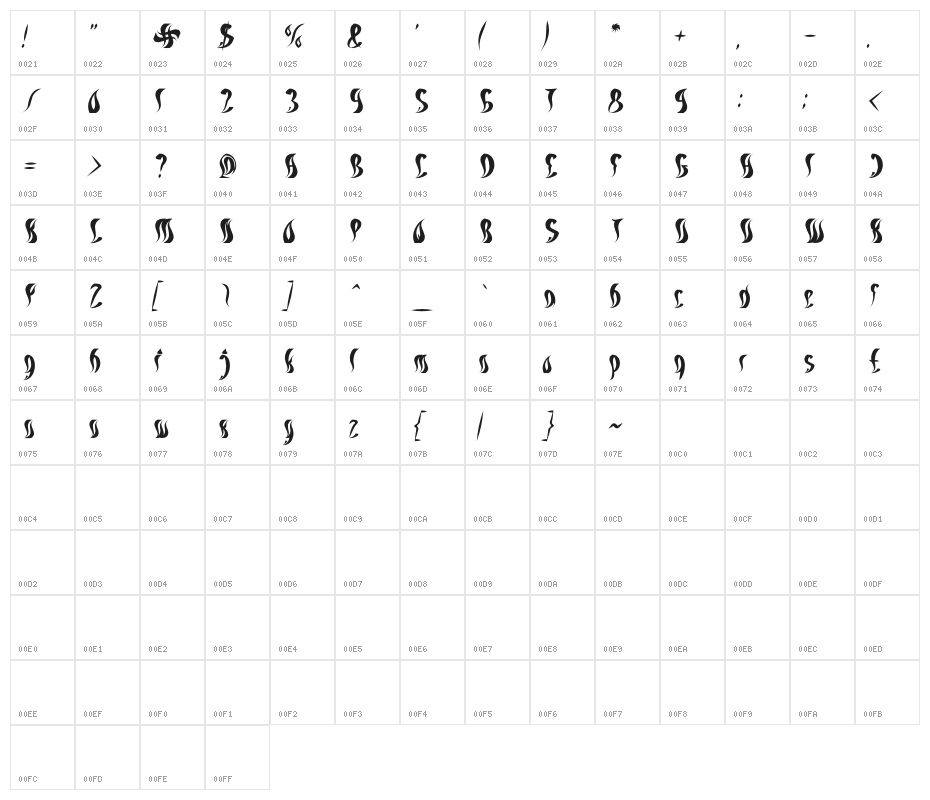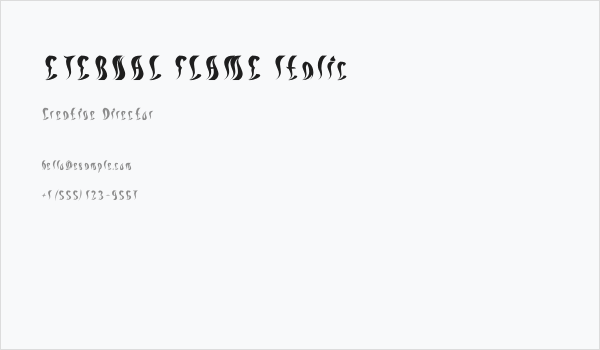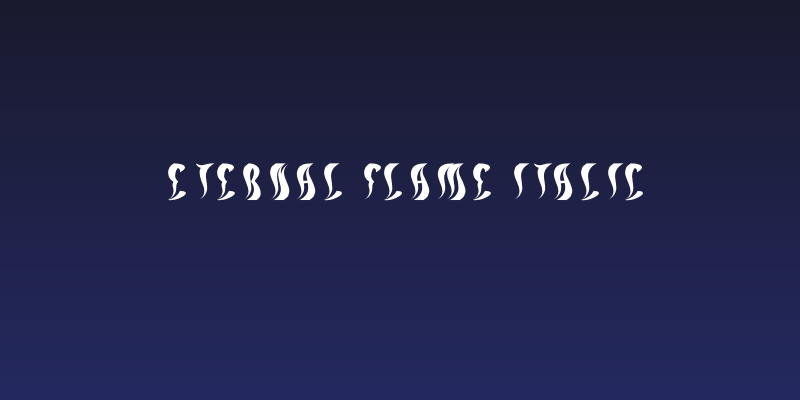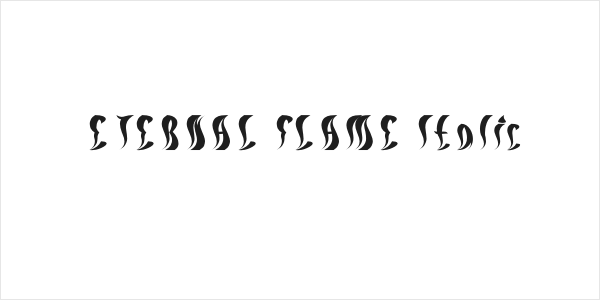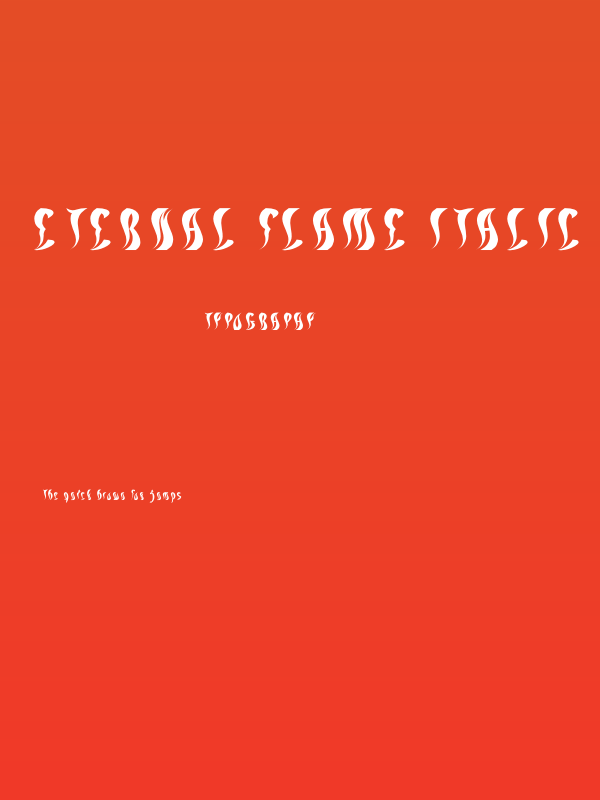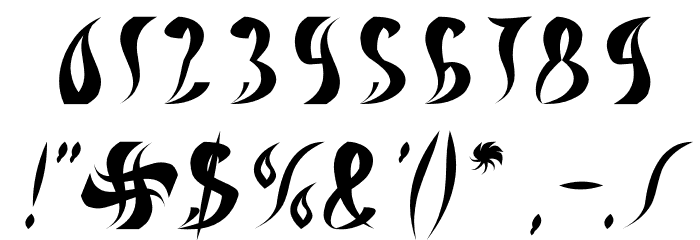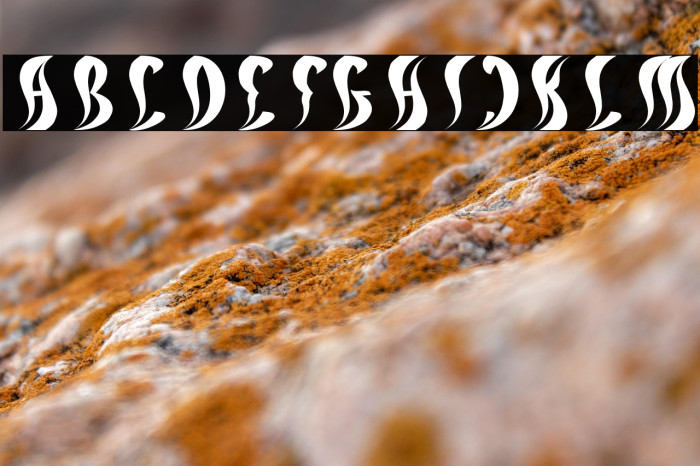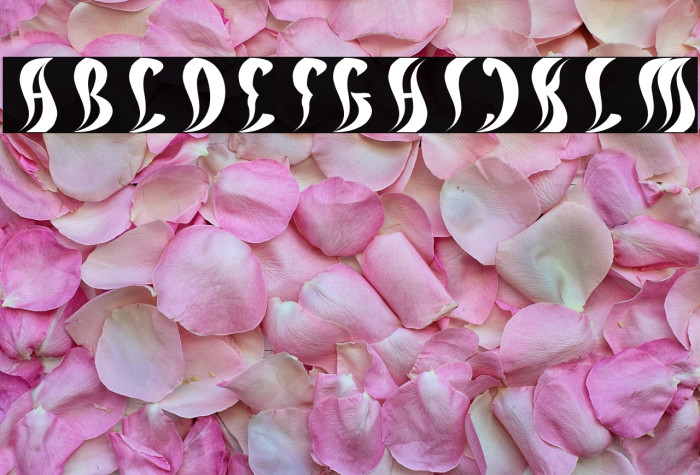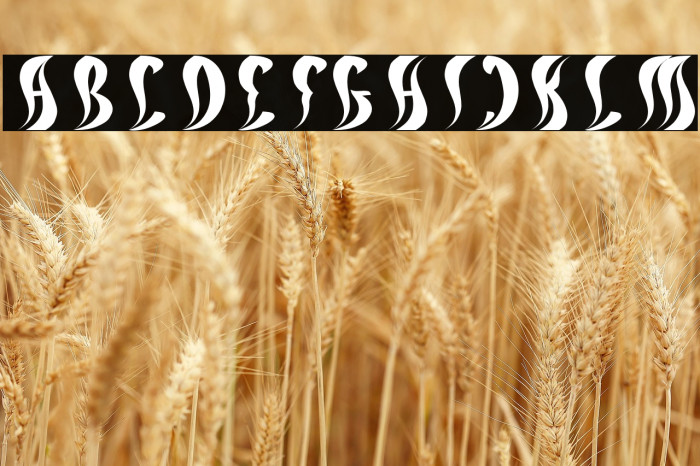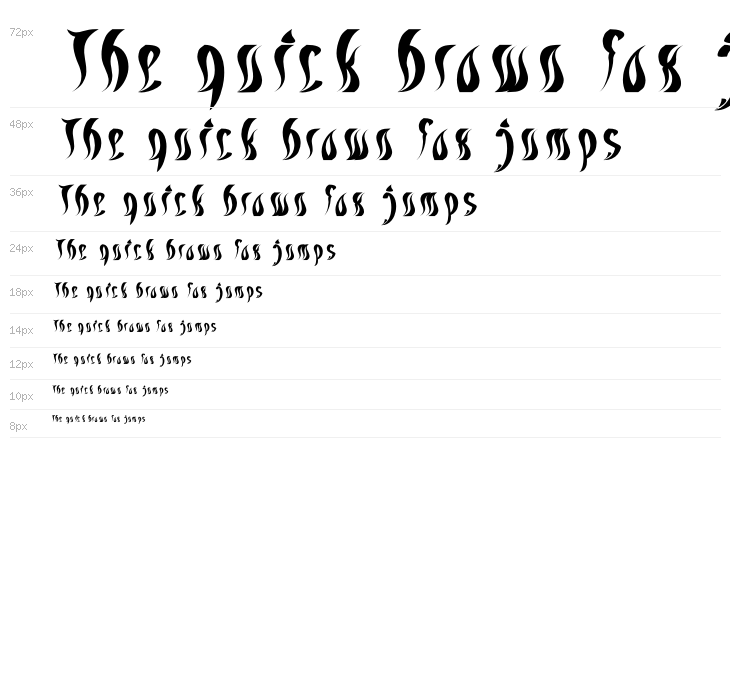
ETERNAL FLAME Italic Font
This font features a dynamic and flowing design, characterized by sharp, flame-like serifs and an italicized slant that gives it a sense of movement and energy. The uppercase and lowercase letters are crafted with dramatic curves and pointed edges, creating a bold and striking appearance. Numbers and special characters maintain the same fiery aesthetic, ensuring consistency across all elements. The overall style is both modern and decorative, making it suitable for eye-catching designs.
| Proposed Projects | Ideal for projects that require a bold and energetic look, such as event posters, branding for dynamic companies, or any design needing a fiery touch. |